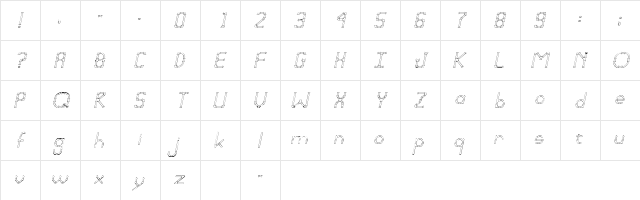
PVCSSK Italic
PVCSSK Family
PVCSSK Italic
Design Context for PVCSSK
PVCSSK is a composed and adaptable typeface that performs quietly and consistently across a wide range of design contexts. The slanted form adds forward momentum and visual energy.
Pro Tip: Use PVCSSK for emphasis, pull quotes, and subheadings where its slanted energy can add rhythm to the layout.